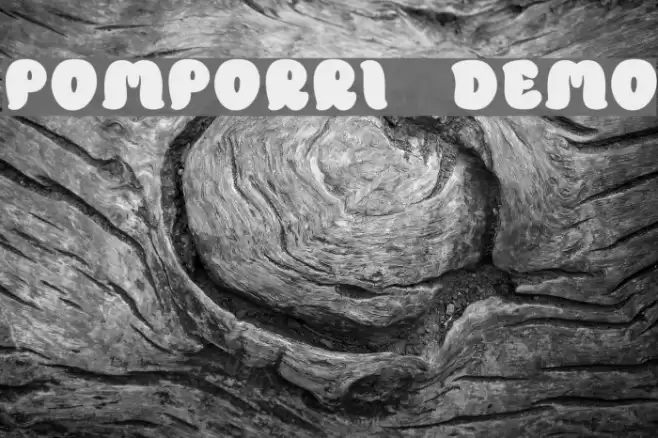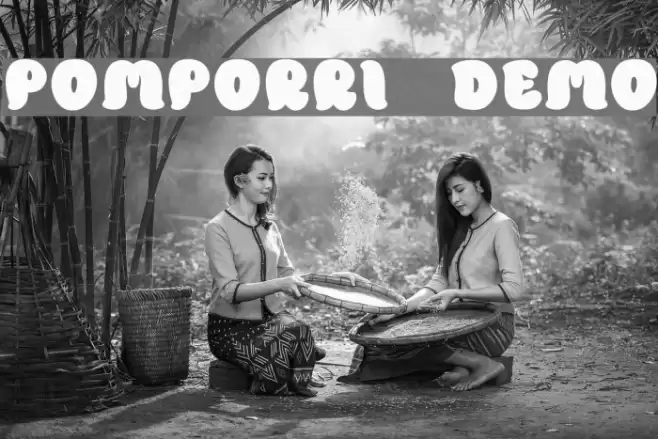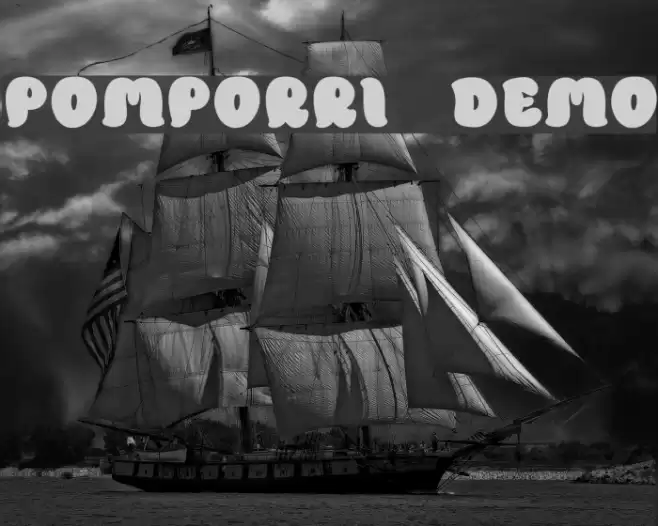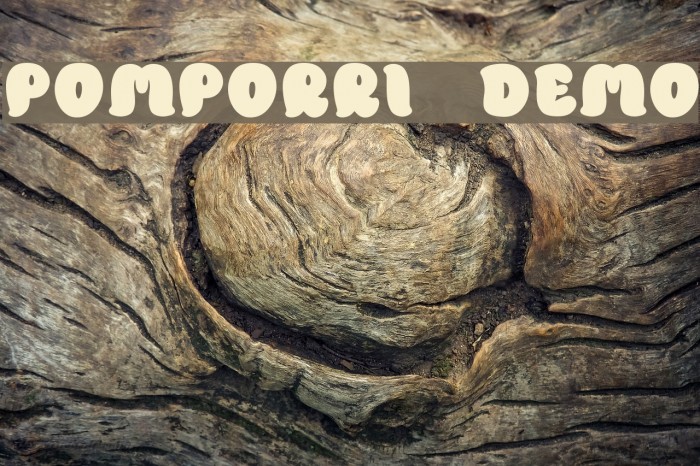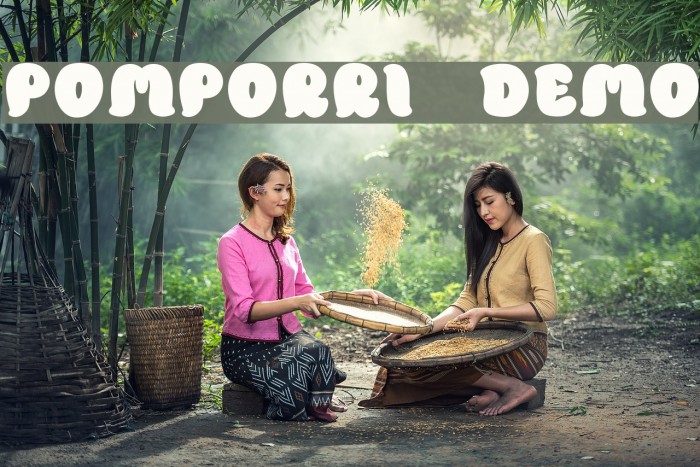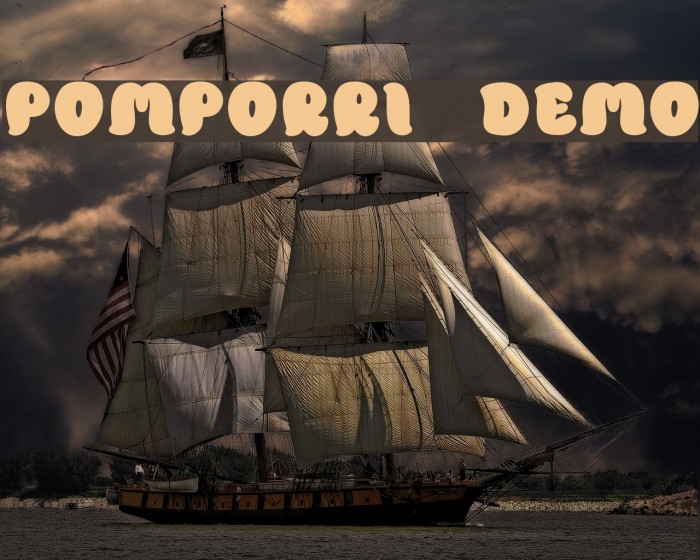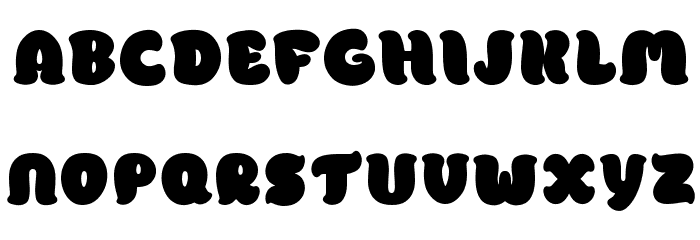
Pomporri Demo Font
Pomporri Demo Description
This font features a bold and playful design with rounded, bubble-like characters. The letters are thick and have a uniform stroke width, creating a cohesive and visually striking appearance. The style is reminiscent of retro or vintage designs, often used in playful or whimsical contexts. The characters are evenly spaced, contributing to a balanced and harmonious look. This font is ideal for capturing attention and conveying a sense of fun and creativity.
A bold, playful font with rounded, bubble-like characters from Fancy fonts.
- Proposed Projects: Perfect for children's books, playful branding, party invitations, and retro-themed designs.
- Overall Style: Playful, Retro